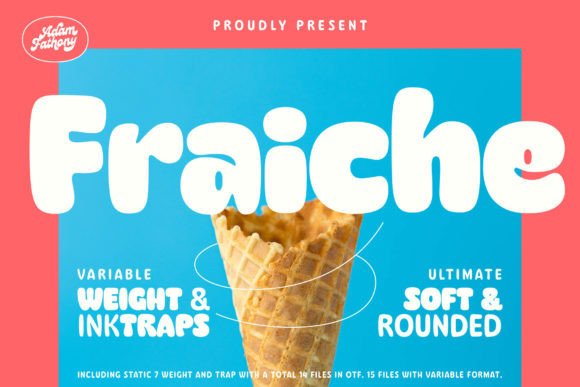
Feast your eyes on Fraiche Font, a delightful and captivating display font that radiates irresistible charm, just like a playful breeze on a sun-kissed day! Crafted with meticulous care by the talented Adam Fathony, Fraiche Font exudes a vibrant energy, adding a touch of whimsy and cheer to any creative pursuit.
Unleash your imagination and embark on a design adventure as you explore the many possibilities that Fraiche Font holds. Its soft curves and rounded edges evoke a sense of warmth and friendliness, making it the perfect choice for projects that seek to engage, inspire, and bring a smile to faces. Whether it's a birthday card brimming with heartfelt wishes or an invitation bursting with excitement, Fraiche Font adds a personal touch that captivates and delights.
Step into a world of boundless creativity as you witness the transformative power of Fraiche Font. Its versatile nature allows you to weave magic across an array of projects, from playful social media posts and website designs to eye-catching logos that demand attention. Let your imagination run wild as you create designs that resonate with positivity and leave a lasting impression.
With Fraiche Font as your trusted companion, you'll discover a world of endless possibilities where creativity flourishes and joy abounds. Dive into the realm of digital artistry and let Fraiche Font guide you towards design masterpieces that capture hearts and ignite imaginations. Embrace the boundless potential that awaits, and let your creations bloom with the enchanting allure of Fraiche Font.